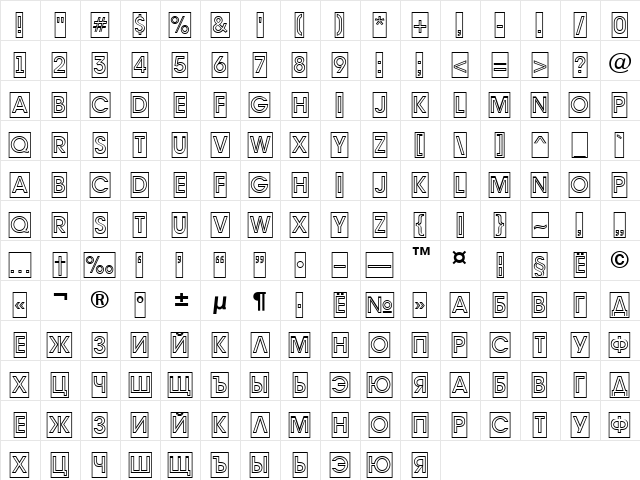
a_AvanteTitulCmOtl Bold
Design Context for a_AvanteTitulCmOtl Typeface
a_AvanteTitulCmOtl offers clean, dependable letterforms without strong stylistic allegiance, making it a practical choice for designers who need flexibility. Its bold stroke weight gives it real presence on the page.